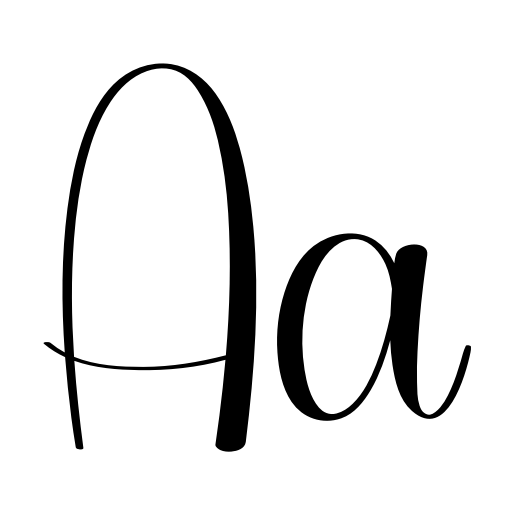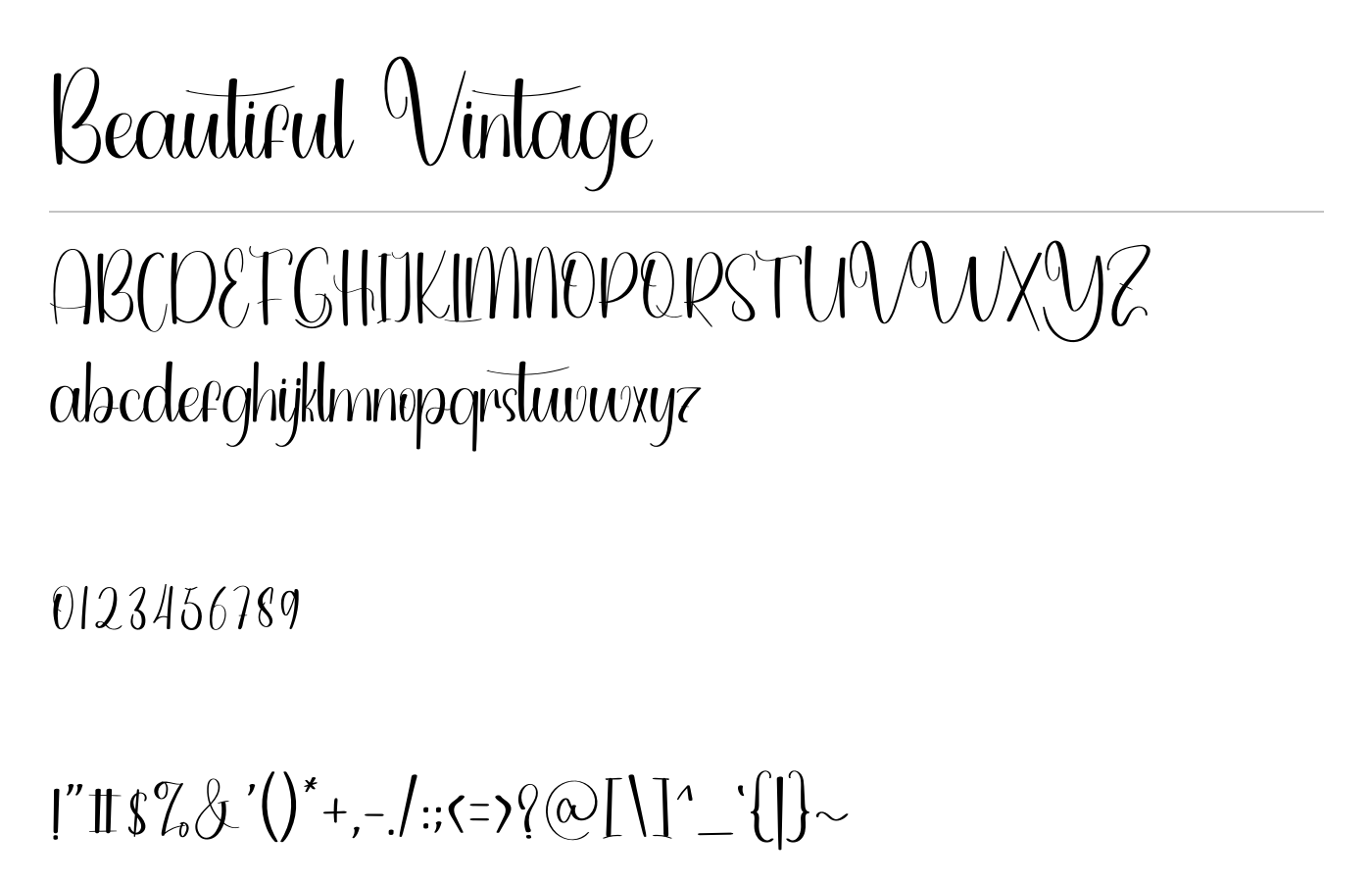
Beautiful Vintage Font is a playful and elegant script typeface with delicate, flowing strokes and a tall, narrow structure that evokes a hand-lettered, vintage charm. Its slender letterforms and whimsical curls create a light, airy feel ideal for branding, invitations, and other designs that seek a graceful yet approachable personality. This font works beautifully in decorative and headline contexts where a touch of nostalgic sophistication is desired.
Beautiful Vintage Font